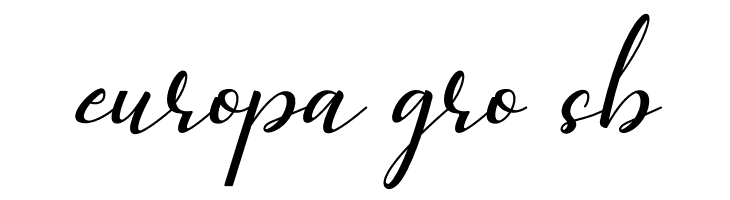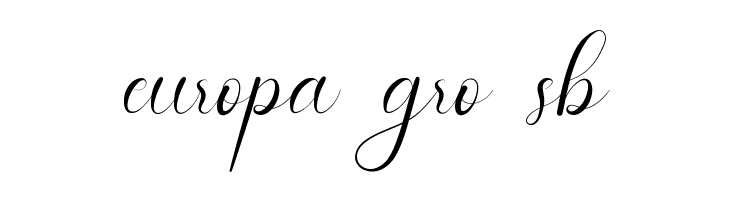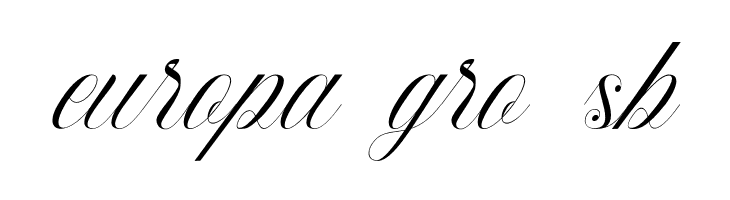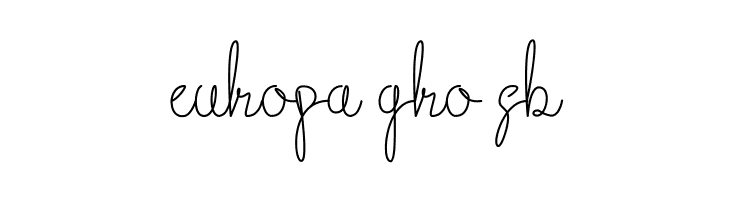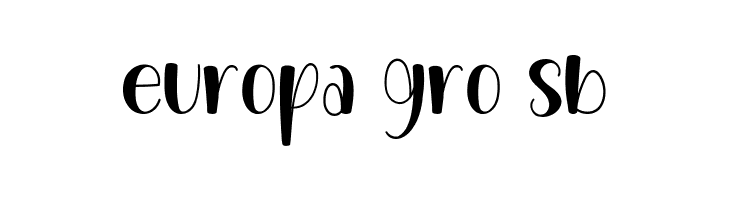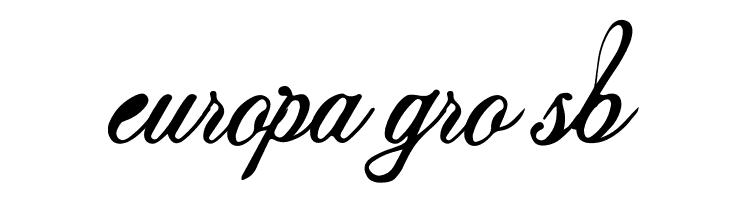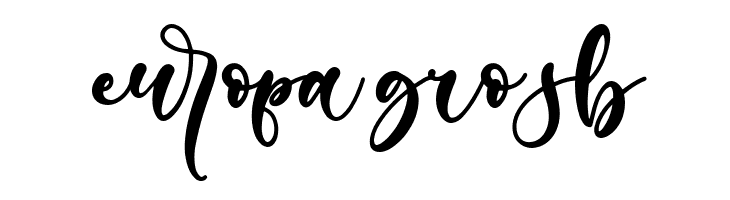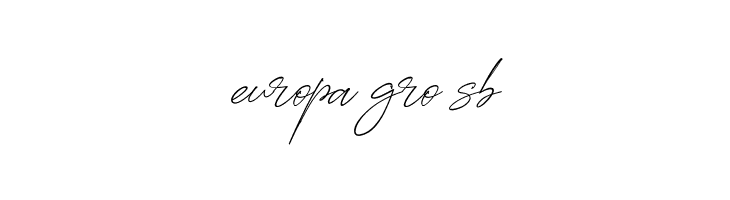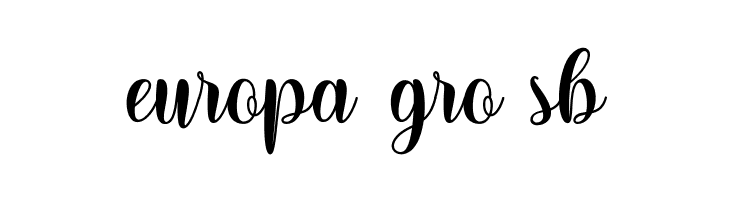
• Laout Beauty Personal Use
A bold, rounded font with a playful and friendly style.
• Beauty Hearts
A playful and elegant script font with flowing, connected letters.
• Marshland_Beauty
A bold, artistic font with distinctive curves and flourishes.
• Beauty Baby
An elegant, flowing script font with high contrast and modern appeal.
• Dewebeauty Demo
An artistic and elegant script font with flowing, interconnected letters.
• Gloria Beauty Demo
An elegant script font with intricate swashes and a calligraphic style.
• Beautyous Demo
An elegant, cursive script font with flowing, connected letters.
• Beautyous Demo Bold
An elegant, bold script font with flowing, cursive letterforms.
• Beauty Athena
An elegant script font with graceful curves and delicate strokes, perfect for sophisticated designs.
• Beauty baey
A whimsical and artistic script font with interconnected loops and curves.
• BeautyGadiez
An elegant, flowing script font with ornate and graceful letterforms.
• Beauty Gadish
A graceful and ornate script font with flowing lines and high contrast.
• Beauty Flower
A playful, handwritten font with bold, flowing characters.
• Beauty
An elegant script font with flowing, ornate cursive letters.
• Hillary - Beauty and Lovely Fon
An elegant and flowing script font with ornate, cursive letterforms.
• Beauty Florist Regular
A decorative and bold font with playful swirls and flourishes.
• Beauty Sahara
A modern, cursive font with elegant curves and a handwritten feel.
• BeautyGreen
An elegant, flowing script font with graceful cursive letterforms.
• Beauty Angelin-Regular
An elegant, flowing script font with ornate uppercase and graceful lowercase letters.
• Awake the Beauty
An elegant and flowing script font with artistic flourishes.
• BeautyintheStardust